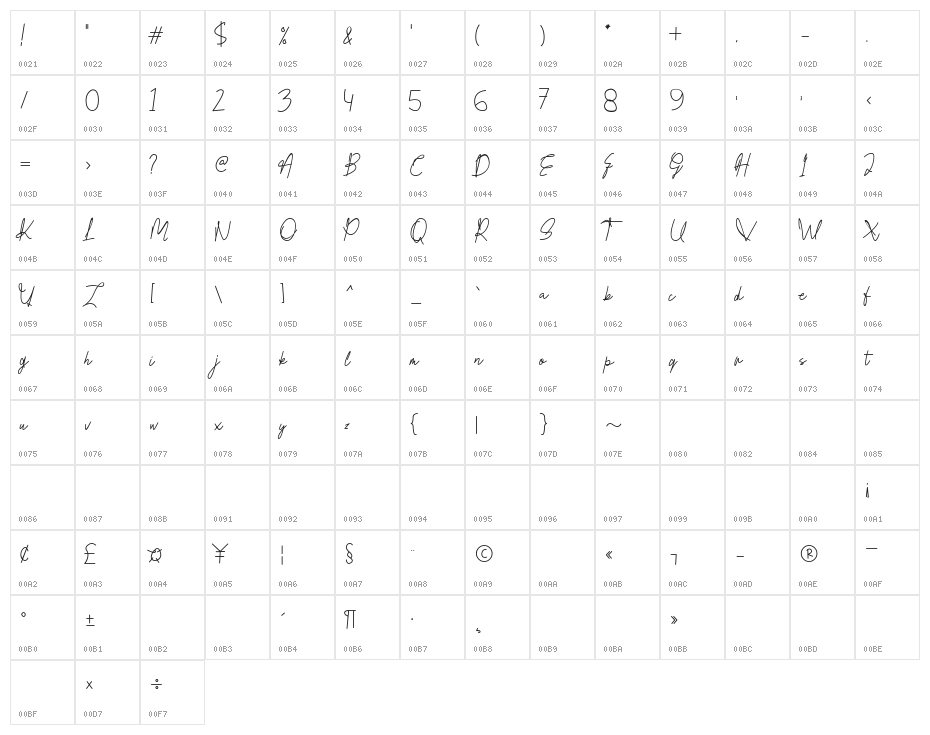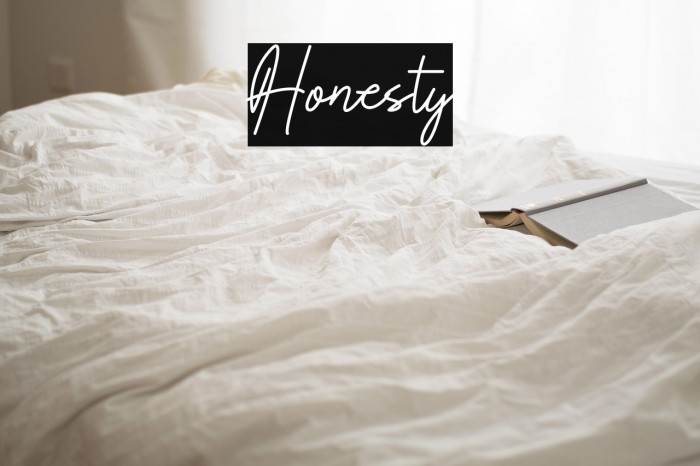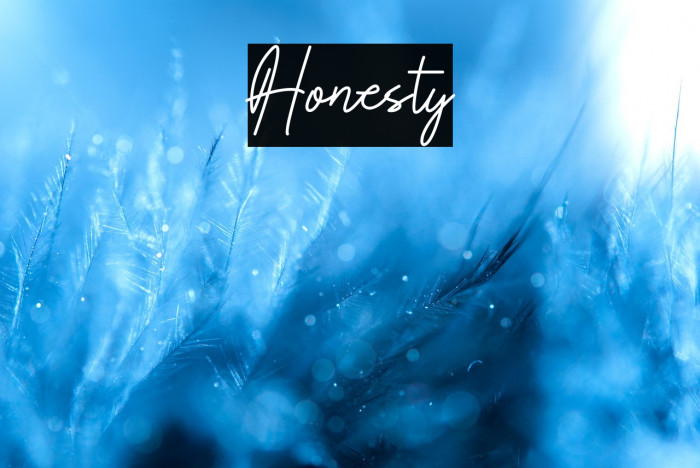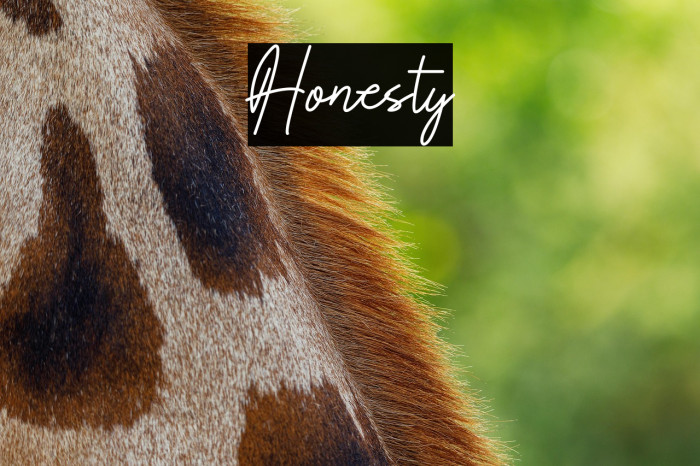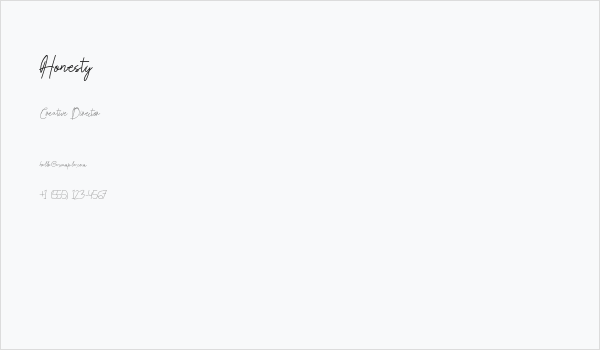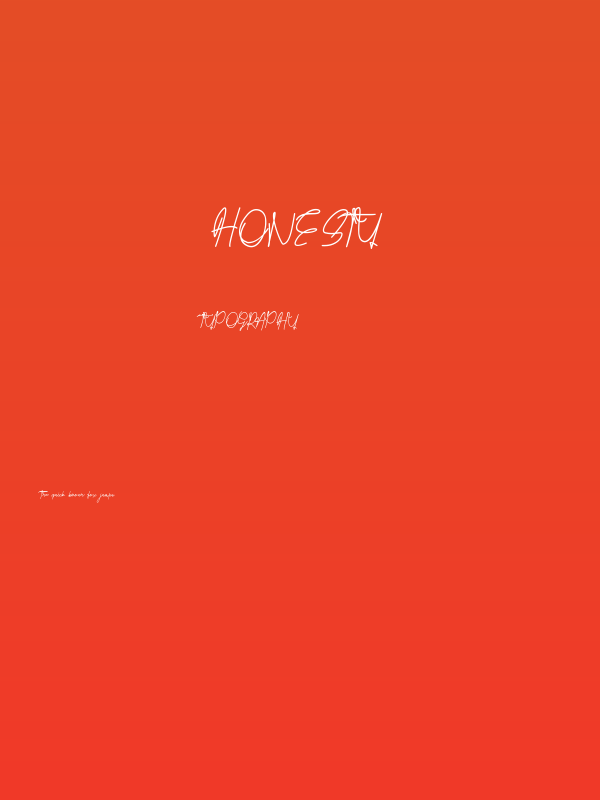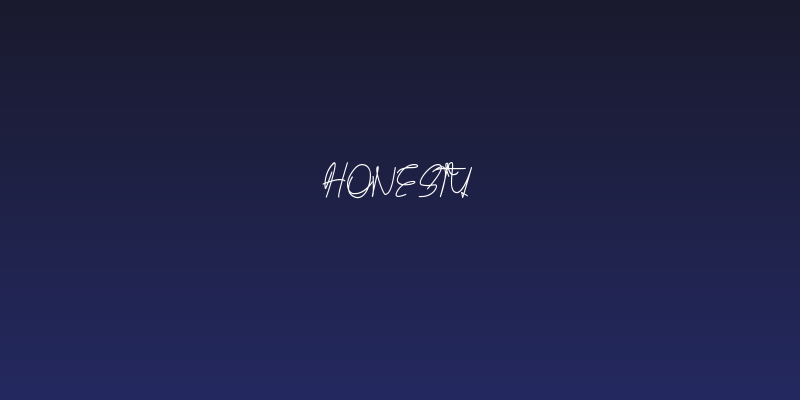
Honesty Font
Honesty Description
This font exudes a casual yet elegant handwritten style, characterized by its flowing, cursive letterforms. The uppercase letters are bold and slightly slanted, giving a dynamic and lively appearance. The lowercase letters maintain a consistent flow, enhancing readability while retaining a personal touch. Numbers are rounded and maintain the same fluidity as the letters, ensuring uniformity across the font. Special characters are thoughtfully designed to match the overall aesthetic, making this font versatile for various applications. The strokes are consistent in weight, providing a balanced look without high contrast. This font is perfect for projects that require a personal, human touch, such as invitations, greeting cards, or branding materials that aim to convey warmth and approachability.
| Overall Style | Casual, Elegant |
| Use Case | Invitations, Greeting cards, Personal branding |
| Proposed Projects | Ideal for invitations, greeting cards, personal branding, and any project that benefits from a warm, personal touch. |